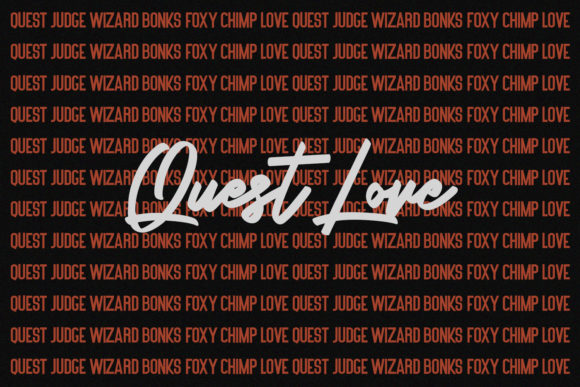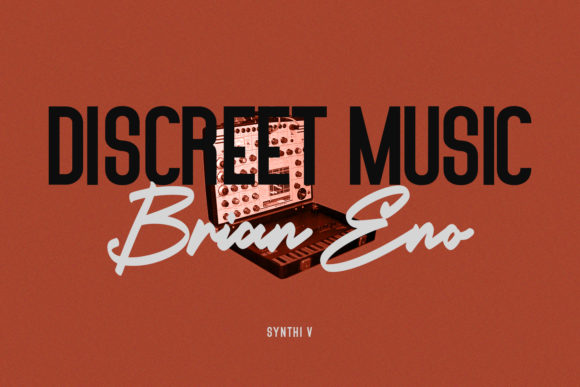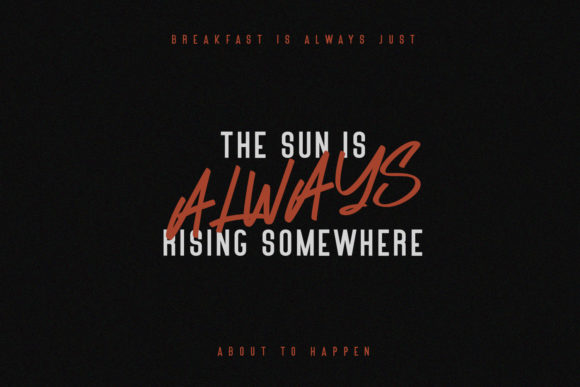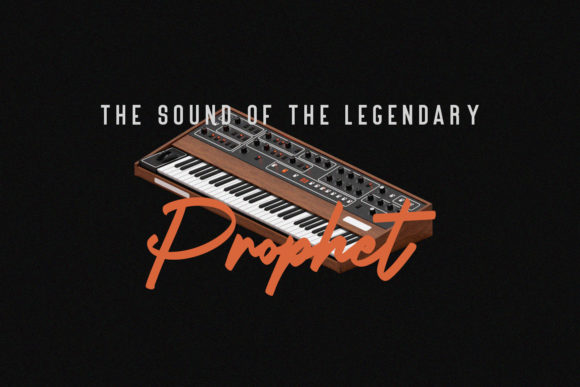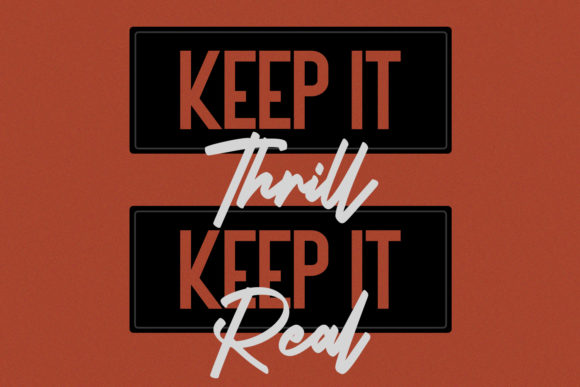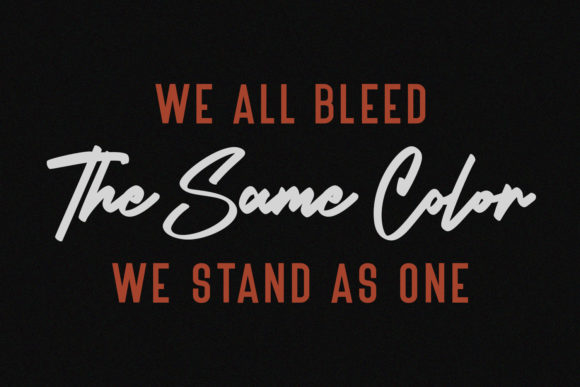
The Power of Arturia Script Font: Elevate Your Designs to New Heights
Have you ever stared at a blank page, struggling to find the perfect words to bring your creative vision to life? The blank page stares back, taunting you with its emptiness. But what if you had the perfect tool to unlock your imagination? For designers, finding the right font can be a game-changer.
That’s where the Arturia Script Font comes in – a stunning duo font that combines the elegance of a handwritten script with the clean lines of a sans-serif font. With its incredible versatility, this font is the perfect companion for designers looking to elevate their designs to new heights.
Whether you’re working on a branding project, a marketing campaign, or a personal art piece, the Arturia Script Font is an invaluable asset that will bring your ideas to life with its unique charm and character.
Arturia Script Font Key Features
- Unique Characteristics: Arturia Script Font features elegant, handwritten strokes and subtle flair, making it perfect for creating artistic and creative content.
- Style Variations: Arturia Script Font comes in 6 styles, including Regular, Italic, Bold, Bold Italic, Script, and Outline, offering flexibility for various design applications.
Arturia Script Font Review
As a designer, I’ve had the chance to work with the Arturia Script Font, and here’s my honest take on it. ✨
- Unique and elegant design: The Arturia Script Font is a beautiful, high-end script font that’s perfect for luxury brands and sophisticated designs.
- Extensive character set: The font includes a wide range of characters, including accents and ligatures, making it suitable for both English and foreign languages.
- Not ideal for casual use: The font is too elegant and sophisticated for everyday use, making it less suitable for blogs, social media, or other casual designs.
Overall impression:
The Arturia Script Font is a stunning, high-end script font that’s perfect for luxury brands and sophisticated designs. While it may be out of budget for some, its unique design and extensive character set make it a valuable addition to any designer’s toolkit.
Arturia Script Font is ideal for creating elegant and sophisticated designs, such as invitations, menus, and product labels.
For the most effective use, pair Arturia Script Font with a clean and modern sans-serif font, and use it for headings and titles.